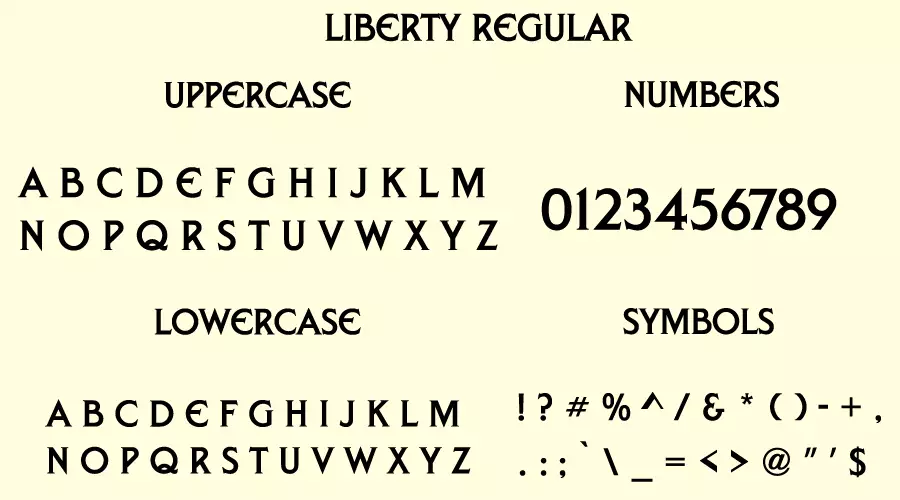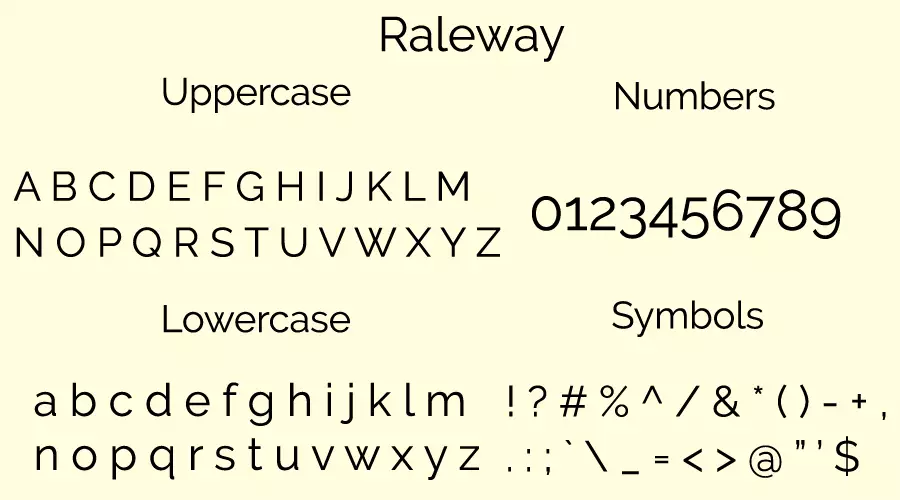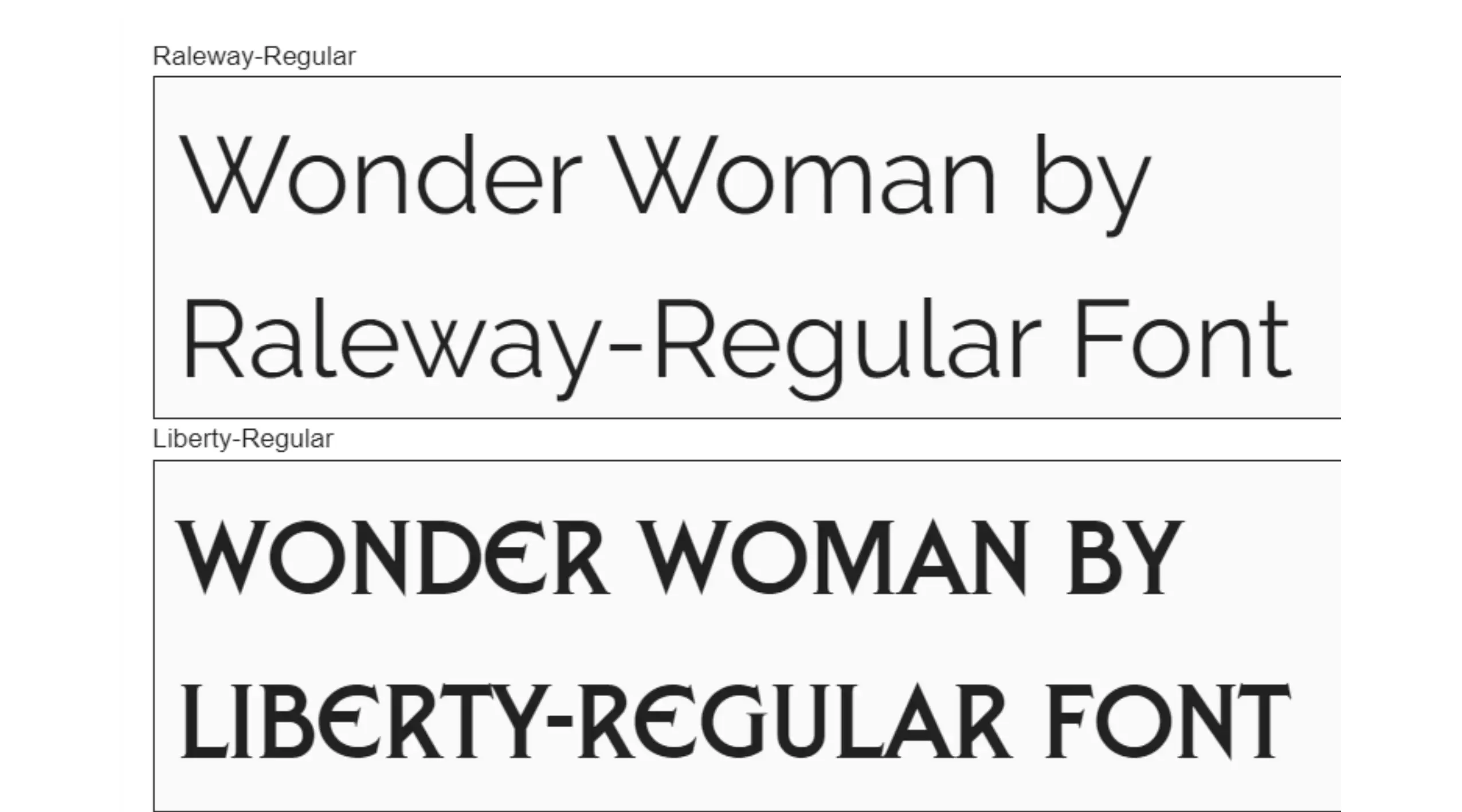
Wonder Woman Font
If you are looking for Wonder Woman Font then we will give you all the answers you needed about the font. It comes from the movie Wonder Women release in 2017 which comes from the DC Comics product by Warner Bros. Let’s learn more about the font
What is Wonder Woman Font?
Wonder Woman Poster Logo Font
It seems Wonder Woman movie poster use the sans-serif font called Raleway for the logo. Raleway is a family of elegant sans-serif fonts. Matt McInerney first made it as a single thin weight, but it has since grown into a family of nine weights.
Wonder Woman movie trailer logo Font
But from The Trailar we see differnt font whis look similar to a serif font called Liberty font. The URW Design Staff design the Liberty Font Family, and URW Type Foundry published it out. Liberty font has two different styles.
About The Movie
“Wonder Woman” (2017) is a successful superhero film directed by Patty Jenkins, starring Gal Gadot. It takes place during WWI and follows Diana as she becomes a legendary warrior to fight evil. The film received positive reviews and grossed over $821 million worldwide, becoming the highest-grossing film directed by a woman. After the first film they also released a second film called Wonder Woman 1984.
In Conclusion